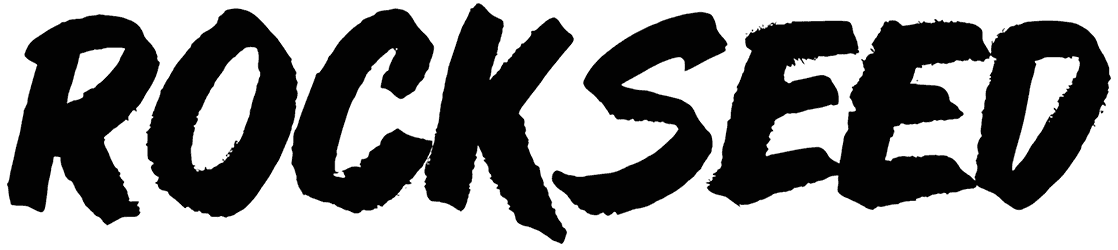
Rockseed Font
Just have to ask, do you have any special longing for numerals when you’re choosing your font? Because if that’s so, you can just move on to our next brush font already. Rockseed isn’t going to provide you with almost half of the digits. Just saying.
Instead, those edgy caps will surprise you with their urban feel, practically throwing themselves at you as soon as you lay eyes on them on camping posters, apparel store discount events, and anywhere else.